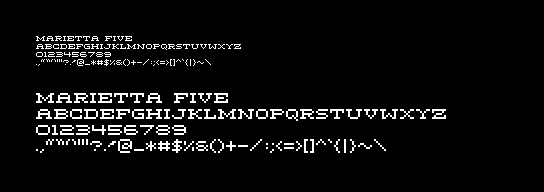
Font name: | Marietta Five |
Author: | Steve Cochrane |
Note by Steve Cochrane | |
Font name: Marietta Five Summary: A wide, serifed, tiny (5px tall) pixel font, made for retro-styled videogames. Intended for font sizes divisible by 8. Works well on an 8x8 pixel grid if monospacing is needed. This will be followed up by a larger Marietta Seven when I get around to it. Marietta Five is public domain so do with it what you want! This was made with the amazing FontStruct. |